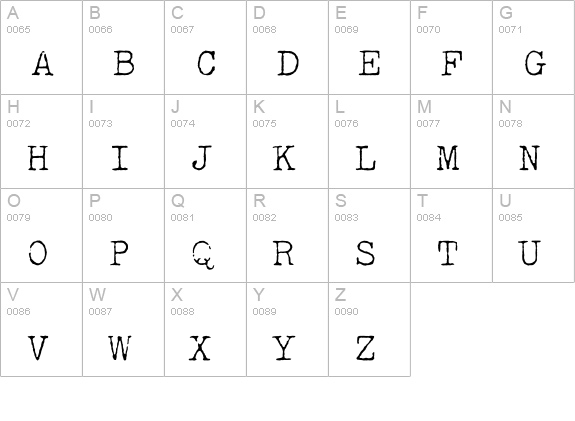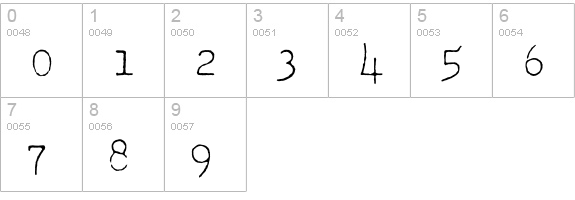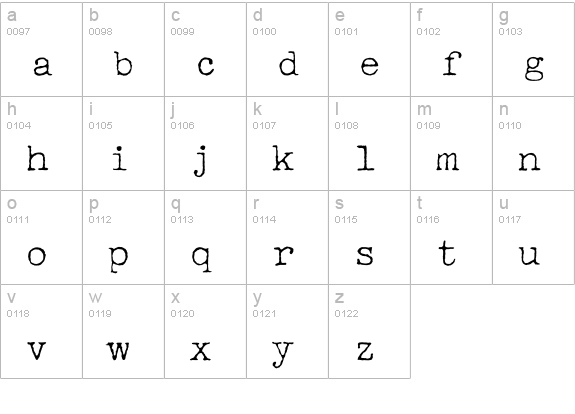
Introducing VTypewriter-Royal, a timeless font that beautifully captures the essence of vintage typewriters. This font exudes an air of nostalgia, taking you back to the era when typewriters ruled the world of written communication. With its elegant and distinctive characters, VTypewriter-Royal brings an authentic touch to any design project. The carefully crafted letterforms of VTypewriter-Royal showcase the unique imperfections and irregularities found in traditional typewriters, adding a touch of authenticity and charm to your designs. The slightly uneven strokes and slightly faded ink give this font a truly vintage feel, making it perfect for projects that require a touch of old-world elegance. Whether you're working on a retro-themed poster, a vintage-inspired logo, or even a personal project that yearns for a touch of nostalgia, VTypewriter-Royal is the perfect companion. Its versatility allows it to seamlessly blend with various design styles, adding character and personality to your work. And the best part? VTypewriter-Royal is available for free download at FontsMarket.com! Yes, you read that right. This beautiful font can be yours without spending a dime. FontsMarket.com offers a wide range of high-quality fonts, and VTypewriter-Royal is just one of the many gems you'll find. So, why wait? Give your designs a touch of vintage elegance with VTypewriter-Royal. Download it for free at FontsMarket.com and let your creativity soar. Embrace the beauty of the past and create something truly remarkable with this timeless font.